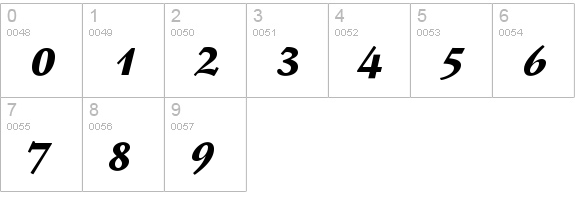
Stempel Schneidler Black Italic is a maximum-weight, dramatic, italic variant in the Stempel typeface family \xE2\x80\x94 well suited to maximum-impact headlines, posters, and packaging.
Stempel Schneidler Black Italic font exudes a sense of elegance and sophistication with its bold and slanted letterforms. This exquisite typeface strikes the perfect balance between traditional and modern design elements, making it a versatile choice for a wide range of creative projects. The strong and dynamic strokes of Stempel Schneidler Black Italic command attention and add a touch of drama to any text. Best of all, this stunning font is available for free download at FontsMarket.com. Whether you're designing a stylish invitation, crafting a sleek logo, or adding a touch of flair to your website, Stempel Schneidler Black Italic is sure to make a lasting impression. Elevate your designs with this timeless and captivating typeface today.